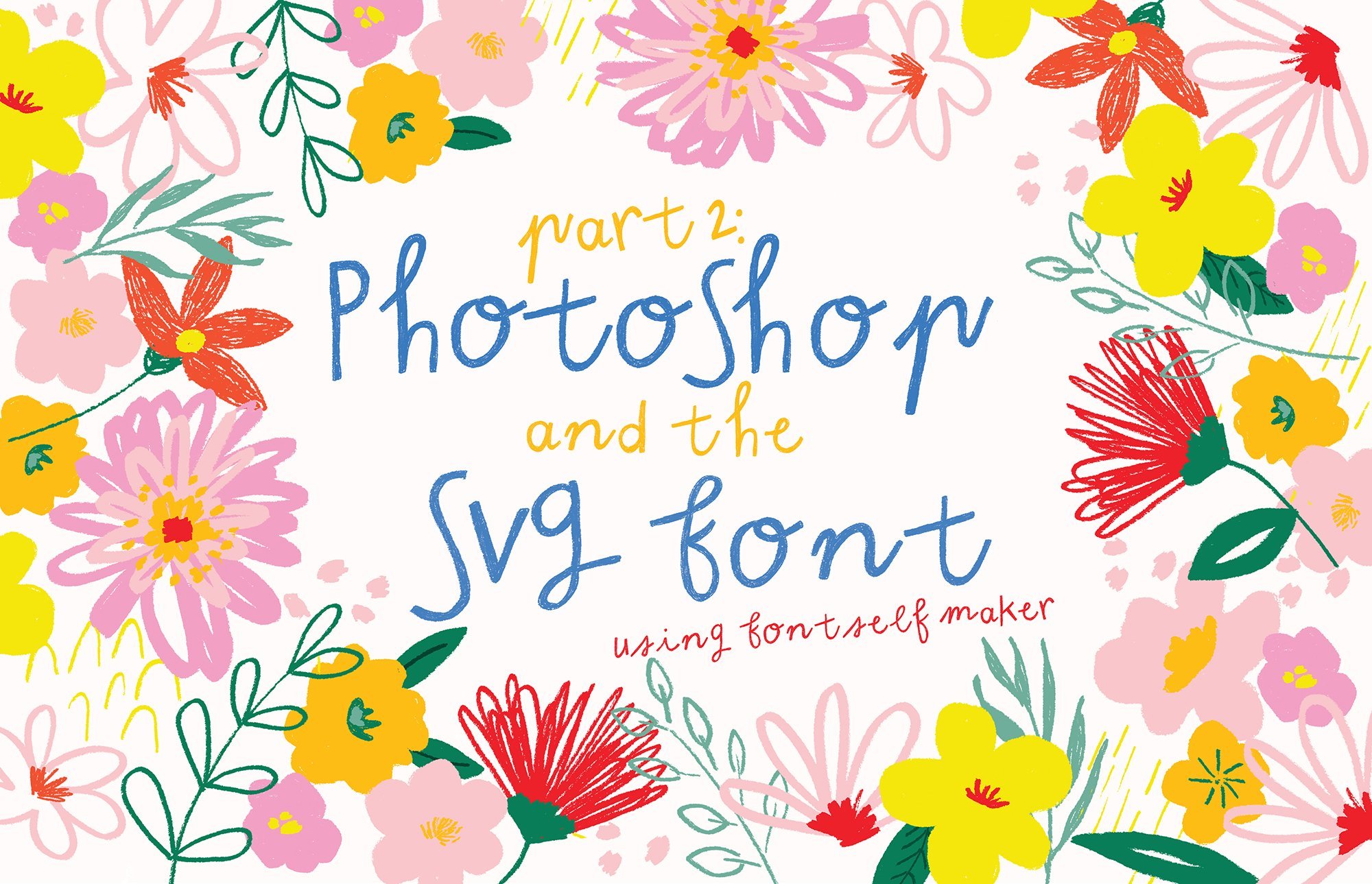
Part 2: Make an SVG font in Photoshop
In this class you will learn how to make an SVG font in Photoshop! SVG or Opentype SVG fonts can have colors, shades, textures and transparency and they're the new kid on the block in the design world! Let me show you how to make them :)
1. 1 Introduction: SVG fonts in Photoshop: Have you heard of Hbg funds? Also called bed map or draws the funds that are the new kid on the block in graphic design . And I want to show you how to make your own in further shop using the funds off extension I everyone, my name is really I'm a service designer and photographer all the way from how people joining close In this close, I will show you how to create your textural SPG fronting further shop and also how to import it into the funds off extension. I will show you how to handle spicing and turning off your phone and how to create special characters and ligatures. This is part two in my Siri's that Miss Board one which is all about creating colored Victor funds in Illustrator, I have to see you there 2. 2 What are SVG fonts?: For those of you who have watched board one, they might be a few definitions and instructions that are repeated. But it's just to make this clear to all students. So what are SVG? Farms that are opens up funds that can have multiple colors, shades, textures and transparency. They can be either victor shapes or but map images, and you can make them using the fronts off micro extension in either photo shop or illustrator. We create a CVG bit mapped phones in further shop and the master. My zing thing is that you can preserve all the texture in your funds. It's all to see on screen, but you're is a close up off. Such a fun. It's a brand new technology, and although they are not supported on all platforms and in all applications, Yates there will only grow and expand in the future. Three major operating systems or really support open type SPG funds 3. 3 What is Fontself Maker: Let's first look at funds off mega. It's an extension for Photoshop or Illustrator that let you turn any lettering into professional, opens up funds. In Photoshop, it lets you make SVG fonts, also known as bitmap or ross funds. He buys these extensions separately, but I really would recommend getting birth if you work in both applications because there is a biggest saving if you buy both at the same time. In my opinion, it's with every saved. 4. 4 Fontself in Photoshop: Okay, let's take a look at phone self. In further shop, you can click on window extensions and then funds off maker, but I've dragged the extension into my side panel for easy access. First, I want to show you their templates. Click on the drop down menu inside funds off, and you'll find it there. It will help you when you created your phone, especially to see if you've created all the necessary characters. You can just switch off the instructions. As you'll see, you will find all the basic characters in the template, as well as advance characters and symbols. You can just create your fund on top off this one. If we go into the lives off the state, let you will see that all the layers on love except the top fly away. You should create your fun. If we open these lies, you'll see that every character is on its own separate liar, and that liar is named after that character. This is our funds off, recognizes each character when importing and gives it the correct place in your phone that also have these guides it up. The Baseline Guide is the most important guide and all the second part of funds out that helps you fund import correctly. There's not much to see at the moment, but you will see how the interface changes been restored in voting our fund. If you want to create a brand new fund, you will just start importing by dragging your front into the box. But if you want to add a new style to an existing fund family, you will first open a fund and then click on New and then a new star. I will show you again light, So let's get started first. Remember to always set your documents up in RGB Callum bad when you start making your fun and also make sure it's an RGB document when you want to type with your friends. 5. 5 Building your font in Photoshop: I wanted a fund fund that I could use in my design work on off course, one that would show off the amazing texture that is now possible with SPG funds. I decided not to design this one in color, but rather monogram, as I would always change the colors to go with my designs in any guise. But it is possible to design it in different colors from the get go that's completely after you. So many possibilities. I drew my characters with Carl whips. This kid cry on, and I make sure that they were at least 750 pixels by 750 pixels per character. That can be smaller but trying not to go bigger. If your characters are too large, funds off will give you a warning upon import, so it's better just to start off with arrived, I mentions. If you're unsure, just create your characters on top off the template as it's the perfect size. But Matt Farms will still this ply properly at print resolution or on a rating on this plan . Remember that older pixels doesn't scowl as well as victors, but not phones can at least give you amazing fixtures, colors and shapes, and soon they will be used on all browsers, smartphones and applications. As soon as I'm finished with my fund, I just start learning it into the templates. I select a character with the lesser tool and then drag it onto the same flat. I move it into plies. And nine. It's liar correctly. Remember to nine each layer after the character that is on that liar. This is very important after realizing all my upper and lower guys laters on, start with symbols and numbers. After that, I will proceed with special characters. You will see that there was a few symbols that I didn't design. Instead, I just placed my extra or alternate characters in those faces. This one make any difference As long as your character is in the correct position. With regards to advice line and the liar name correctly, it can be anywhere on the template, as these are the only two things fund self relies on to import them correctly. In the next port, we will start importing our fund into front south. See you there 6. 6 Import to Fontself in Photoshop : now we're going to start importing are fun to fonts off. I've organized my layers so that all capitals are together and so forth. I will select the top row off the table. First, you'll notice that my W and my are are not selected as I place them on the baseline in the bottom road. I cannot select them now, too, as using more than one baseline at a time. Will not have fun self to know which baseline to use to place your characters, but as their alternates, it's no problem. We will just import them a little bit later, after selecting the top row, I will drag them into the box. You will see fun South shows you wait to drop them after the capital later, you can just continue with the race. You can also use the buttons at the top to import your characters. You can use the batch baton for all special characters. I always just go through them at the end. You see that I placed correctly. Now we will start importing our alternates from the bottom around On alternate. Later is another variation of your later. They can be more than one and this will just give the user of your phone more choices this way that can mix and match without a lot of effort. Funds off will ask you if you want to replace your characters, but just choose alternate instead. Just a quick example off special characters. They're liars should also just be named after the character that's on it. And then I should also just be imported as usual with the batch baton, and then you'll see that I will appear in your fund. These special characters are quite important to support other languages, So if you intend on seven year old fans professionally, it's very important that you create these before this fun. I haven't actually created all of them, but I will do if I decide that I will. So I've also created ligatures. Ligature occurs when two letters next to each other are joined as a single later because of the way they look next to each other. When you talk to laces together, yeah, fun self will automatically import it as a ligature. You would just have to choose between a standard or a discretionary ligature. The difference is that with the standard it will automatically type that way, and with discretionary, the user will have to choose it while starting funds off will automatically detect there. It is a ligature when you time to latest next to each other in the box and import it as such. If we just choose ligature and click on batch funds will unfortunately not included with great name. So you will just have to remove three minutes 29 Any characters, you can just click on the little box beneath them. After importing my fund, I will go into the fund, information you and full out all the details about this front. Before we save our fund, we will first look at spicing and can you see in the next one. 7. 7 Spacing and Kerning: after we've imported all our characters, it's important to fine tune our funds, spicing and turning. First, we will look at spicing on the home page of funds off. To start off, we will adjust our characters in this bottom block. You can enlarge every later by clicking on the arrows in the top left and Fiona, and this will help with finer adjustments. After this, we will go into the advance menu, where you will find two more menus, one for spicy and one for training. If you've adjusted spicing off your individual characters in the home menu, spacing should already be mostly sorted out in this advance menu, so you will be able to find you in everything, especially if you plan to sell your friends in the spicy menu. You have three important areas in the block. On the bottom left hand side, you will find words which you can go through to see what your spicing actually looks like. Take note that the special characters in gray are the ones I didn't create, and they will be replaced with a regular fun. If you try to stop them with this fund, you will also see if characters doesn't look entirely right. Like this ex of mine. I will have to fix it. As you can see, I will have to work on my spicing with this fun. But I love irregularities. It's exactly what I wanted. You can type words in the block at the top, and then you can click on individual characters to change their spicing. The spacing values on the right hand side will also change, and year you will be able to inter values manually. After we finished with the spicing, we will go into the turning menu. Turning is the process of adjusting the spicing between character pays that are used together frequently. It's important to help the space to look the optimum base next to each other. When you use it to act with your funds, they won't need to go and a justice because you would have done it and exported all the training values with your father in the bottom left and block Fund South has provided a wordless with all the possible turning bays, go through all of them and a just plain these Assyrian. You can type these words to make changes in the top lock and on the right and time you will see these training phase and they values as they change. You can also change the preview size here to help you even more. You will also see that fun self provides list off sample takes to help you with gaining days. Just click on the different A. B. C's numbers and symbols at the top. To open them at turning is super important when you're planning on selling your funds. Now that we've finished with spicing and learning, we can save our phone click on the home button and then unsafe. Give your cool fun tonight brace. Okay, find your folder and click on site. You will see a green block appear in the bottom, click on open front, then install your fund and you'll be ready to start talking. I want you to also take a look at the best map warning with a little triangle. Next weight, they you will find a little bit more in for about my funds and where there are currently supported In the next segment, we will use your fund and I will show you how to read salaried as well. See you there 8. 8 New styles and recoloring your font: Now I want to show you how to add more styles to your front. Think of your usual bold and italic versions as different styles in the same front family. Let's say you have created a bold version of your foot and you want to add it as another style to this fund so that they are part of the same front family. This is what you will do. I haven't actually created new style. I'm just going to use the regular 12 demonstrates. Click on New and they knew Star. Give it a new name and click on out guys. Now start importing your new style. The wonderful thing about adding into an existing family is that you can also import the fund family spacing and turning values. If you go into advance May, you will see the import spicing battle, click on it and choose the style that you want to import despising from same with the in fort turning batters, click on it and again choose the style that you want to import. The learning from this is such a wonderful time saver. Then remember to save this new style. I saved mine in the same folder as the rest of that front family. Now let's start typing. I didn't create this fund in color, as I knew I would use it in different design projects, which would all require different colors. So I want to show you how I would recover it. First electoral type, then click on effects in the layers panel right at the bottom. Choose color overlay. Click on the color and the color picker will pop up. And Jokela your fund is colored and just look at that wonderful texture. I also just want to show you, Artie re color your fund in illustrator So I feel design and make sure that it's exactly how you want it, because you will need to roast, rise it, things elected and click on object. Ross Rise cheese already be hi and transparent. Click OK, think click on, Edit it colors and just color balance. Stint on convert and preview and start playing with the sliders and that's it. You have a beautiful SVG front 9. 9 Class project: For your class project, I wanted to make your SVG font in Photoshop and pass it to the loss of that vehicle saying, thank you for taking my flaws and also be on the lookout for my other close, which is all about elevator files in Illustrator have deceive air.